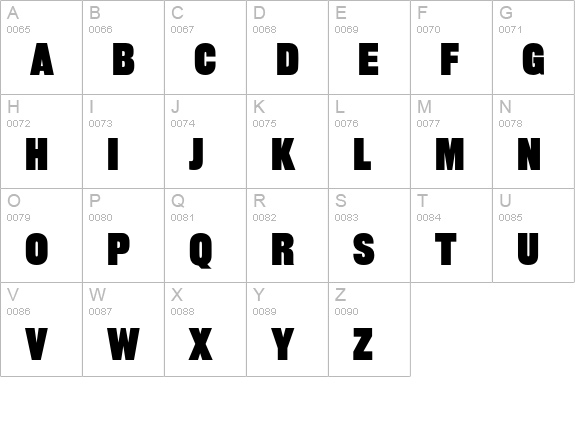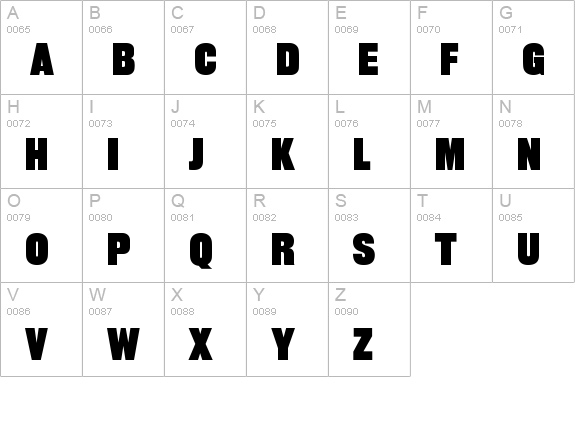
Rhode-BoldCondensed Font Details
Rhode-BoldCondensed is a stunningly elegant font that exudes power and sophistication. With its bold and condensed design, this font captures attention and demands to be noticed. Every letter is meticulously crafted, showcasing a perfect balance between sharp edges and smooth curves. This versatile font is ideal for a wide range of design projects, whether it be creating eye-catching headlines, designing logos, or crafting striking posters. Its bold and condensed nature allows for maximum impact in any layout, ensuring that your message stands out from the crowd. But what sets Rhode-BoldCondensed apart from other fonts is that it is not only visually captivating but also free. Yes, you read that right - this extraordinary font is freely available to download at FontsMarket.com. Now you can enhance your design projects without breaking the bank. So why wait? Unleash your creativity and elevate your designs with Rhode-BoldCondensed. Its distinctive style and the fact that it is freely accessible make it an invaluable asset for any designer or creative professional. Download it today and experience the power of this exceptional font.